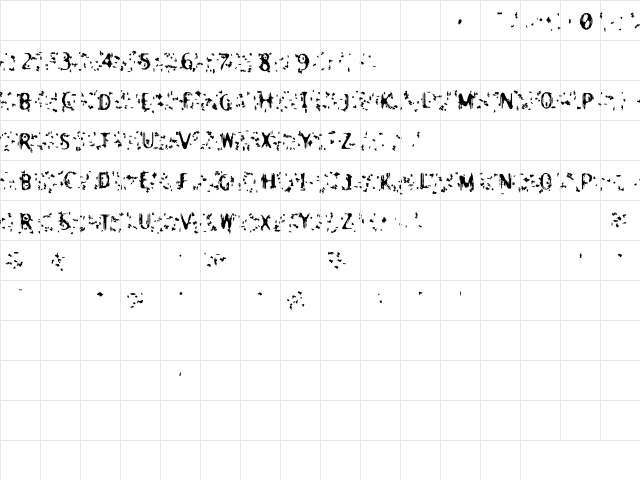
Complete ReactorFB Degrading glyph index. Displaying only characters natively supported by ReactorFB Degrading font.
ReactorFB is a composed and adaptable typeface that performs quietly and consistently across a wide range of design contexts.